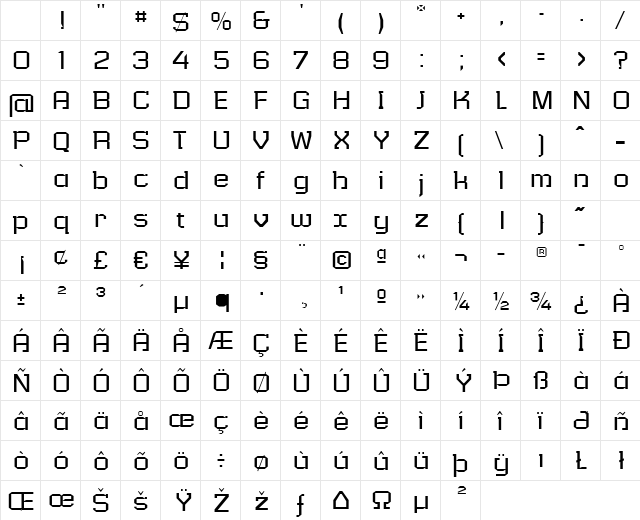
Complete Verso Light glyph index. Displaying only characters natively supported by Verso Light font.
Verso is a composed and adaptable typeface that performs quietly and consistently across a wide range of design contexts. Its slender proportions lend an understated elegance to any composition.
Pro Tip: Use Verso in both headline and body roles to test its range before committing to a single application.